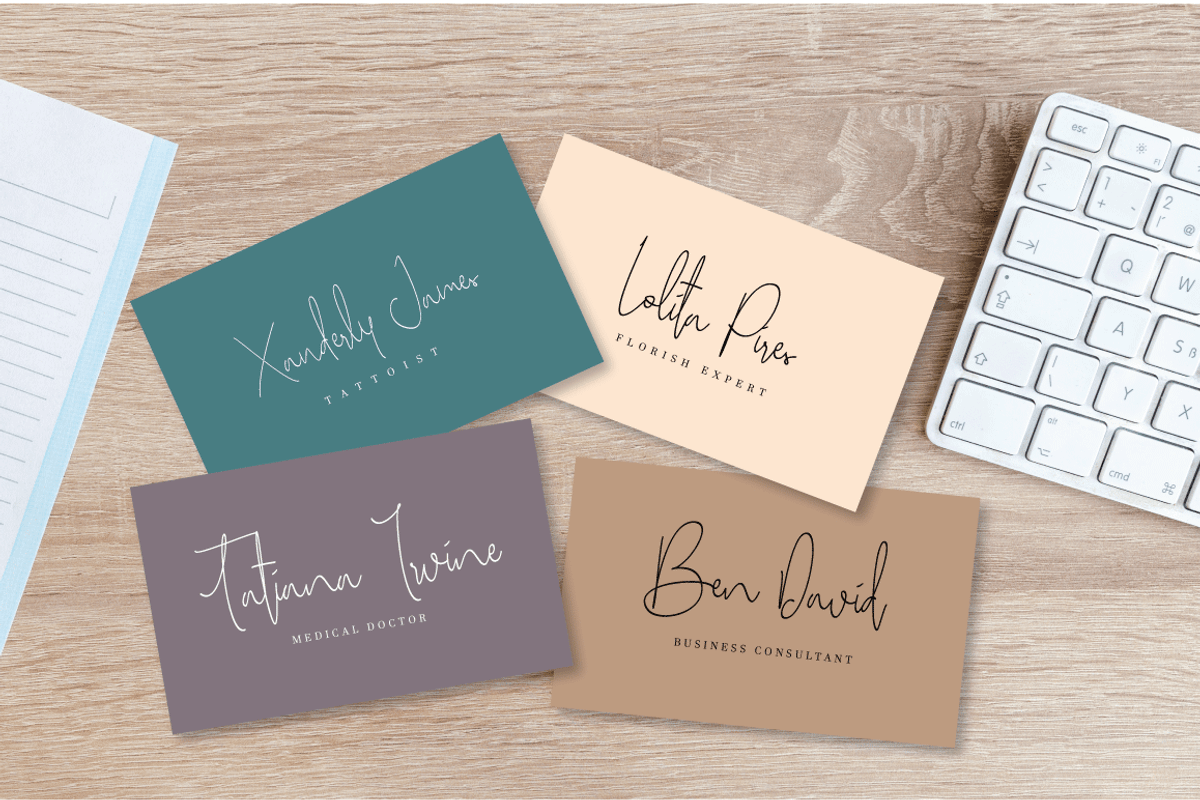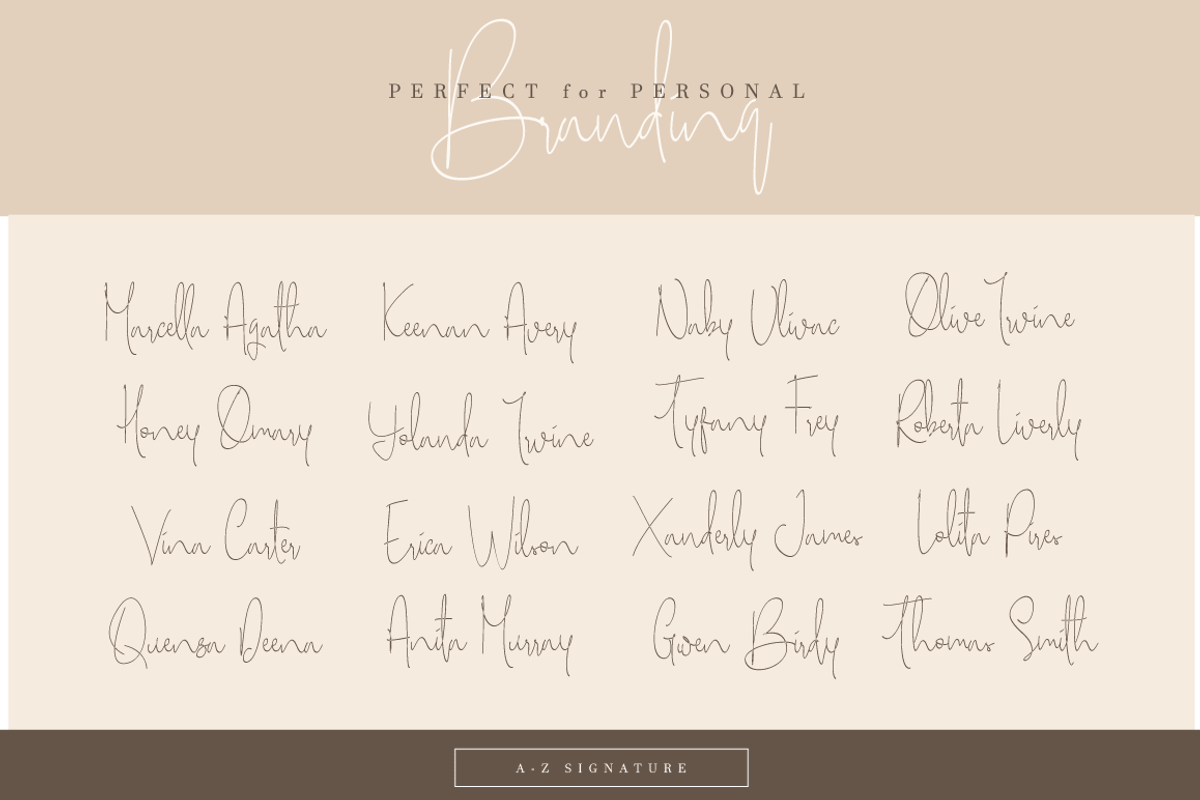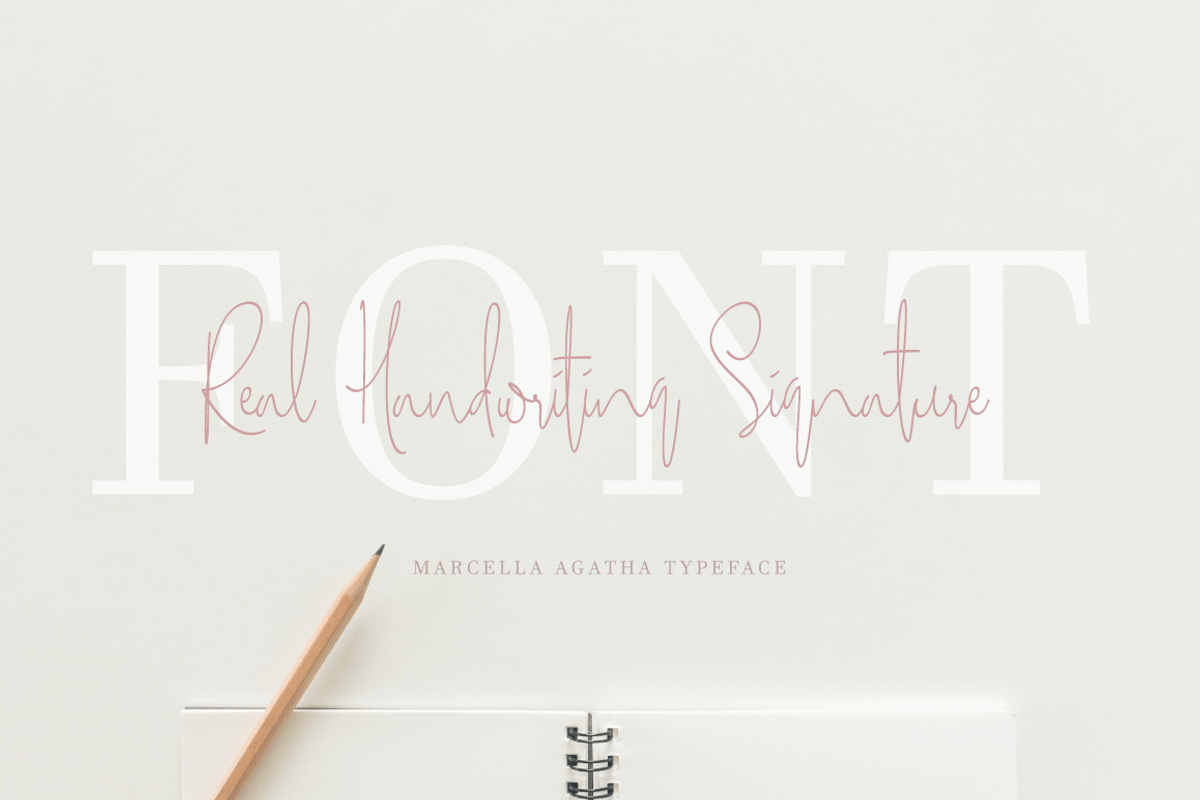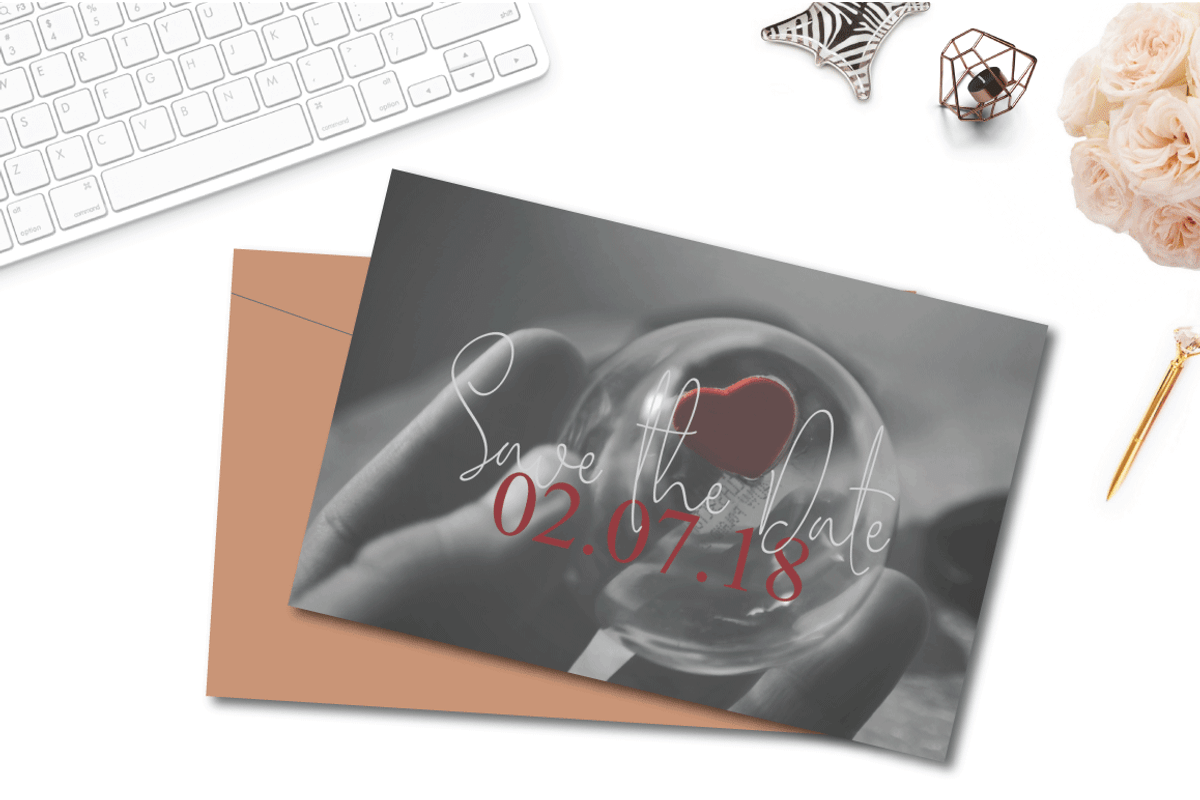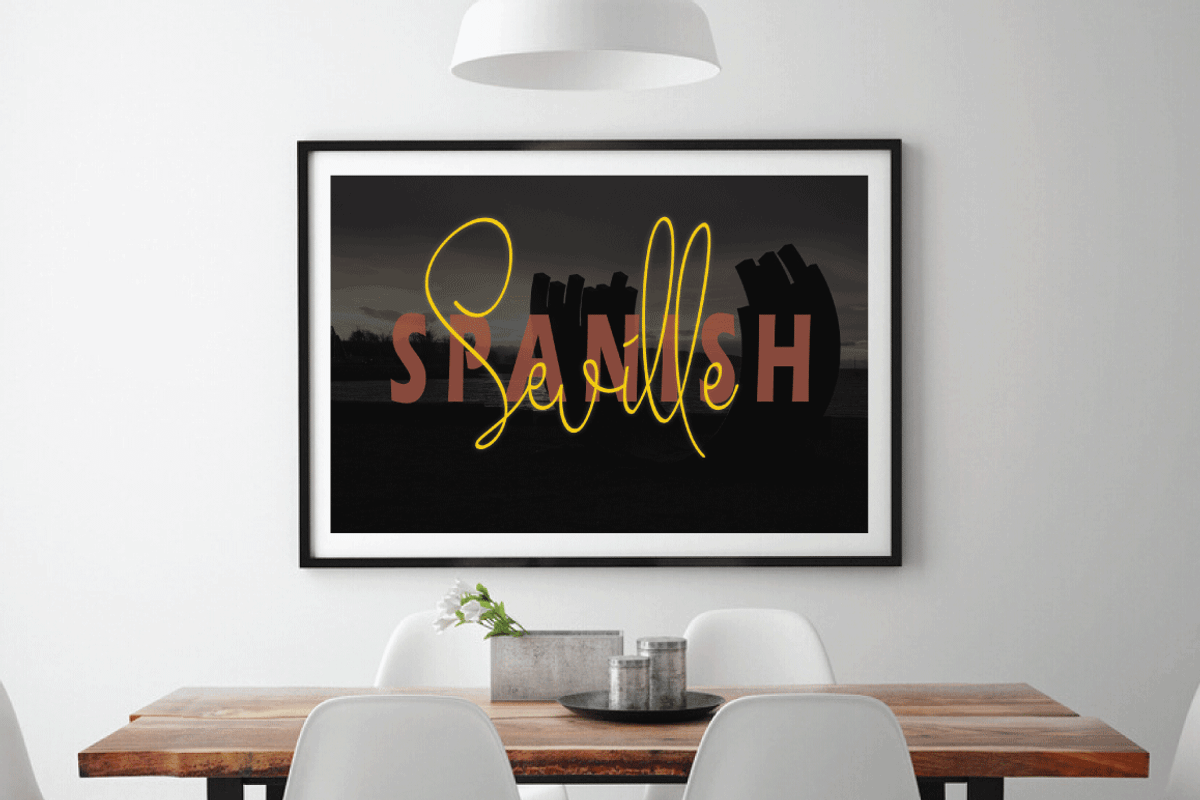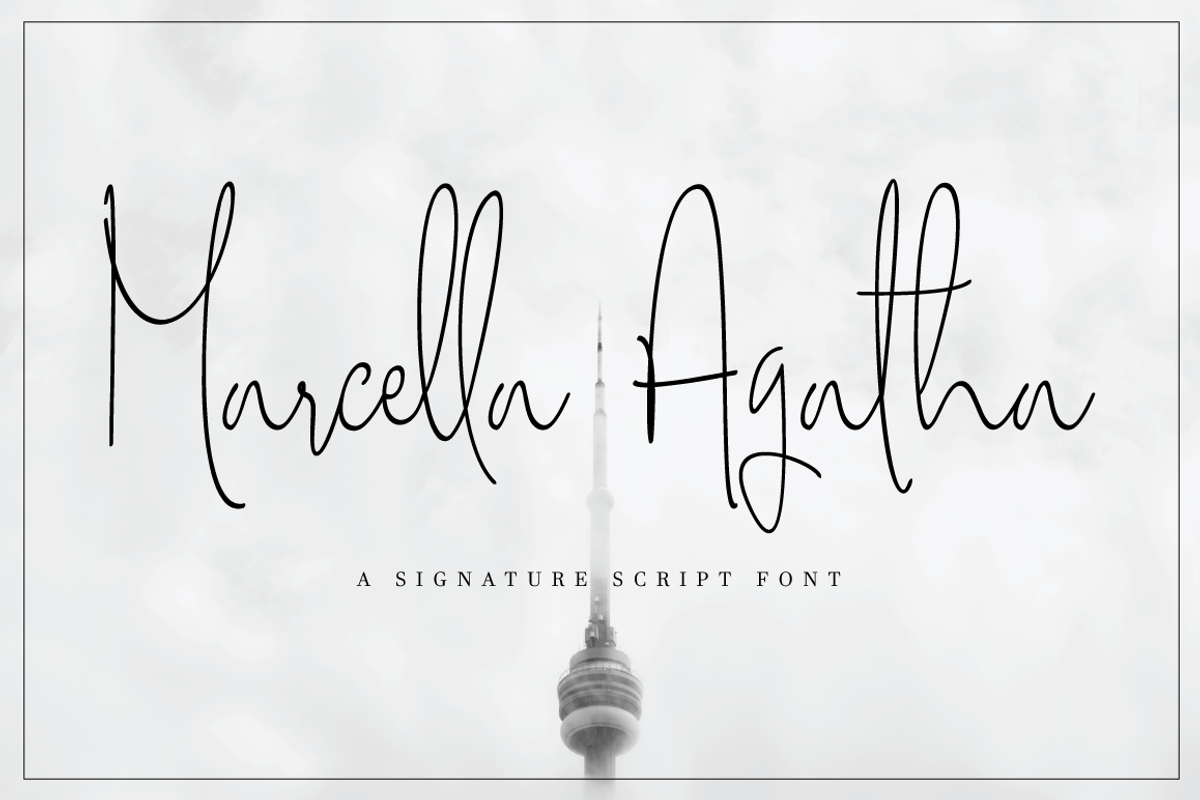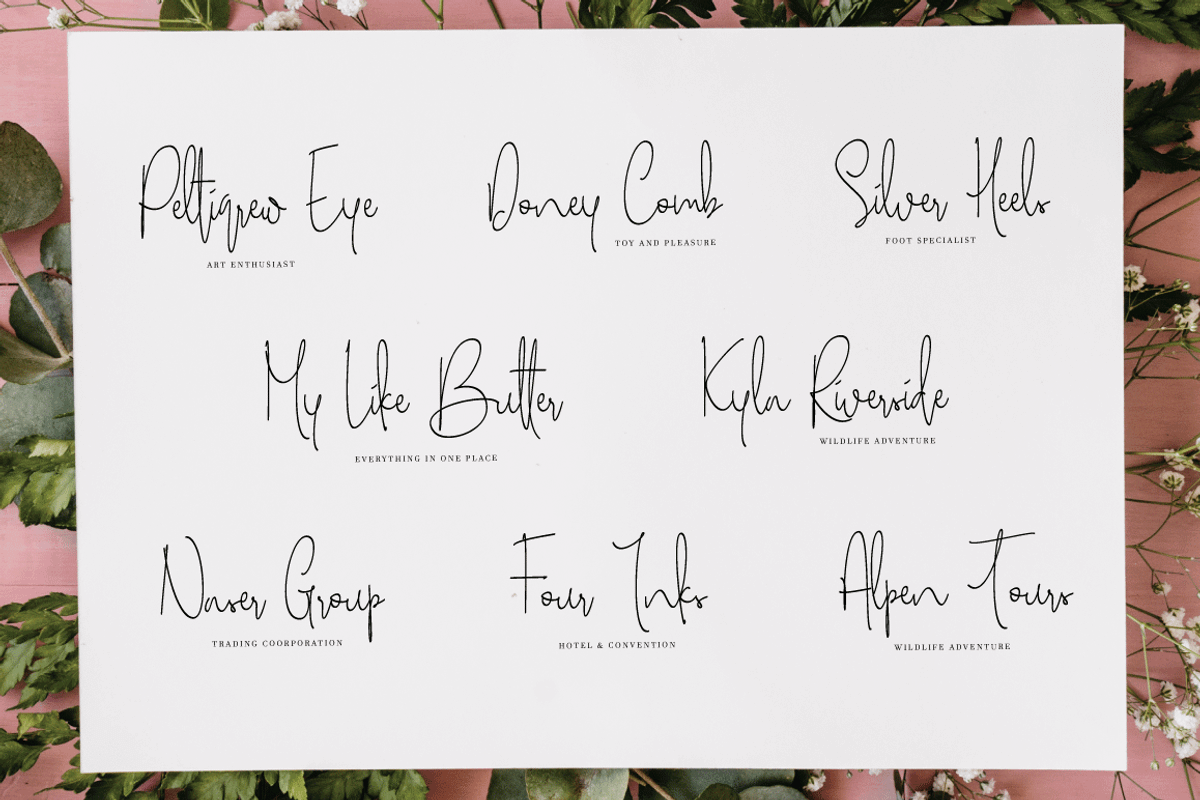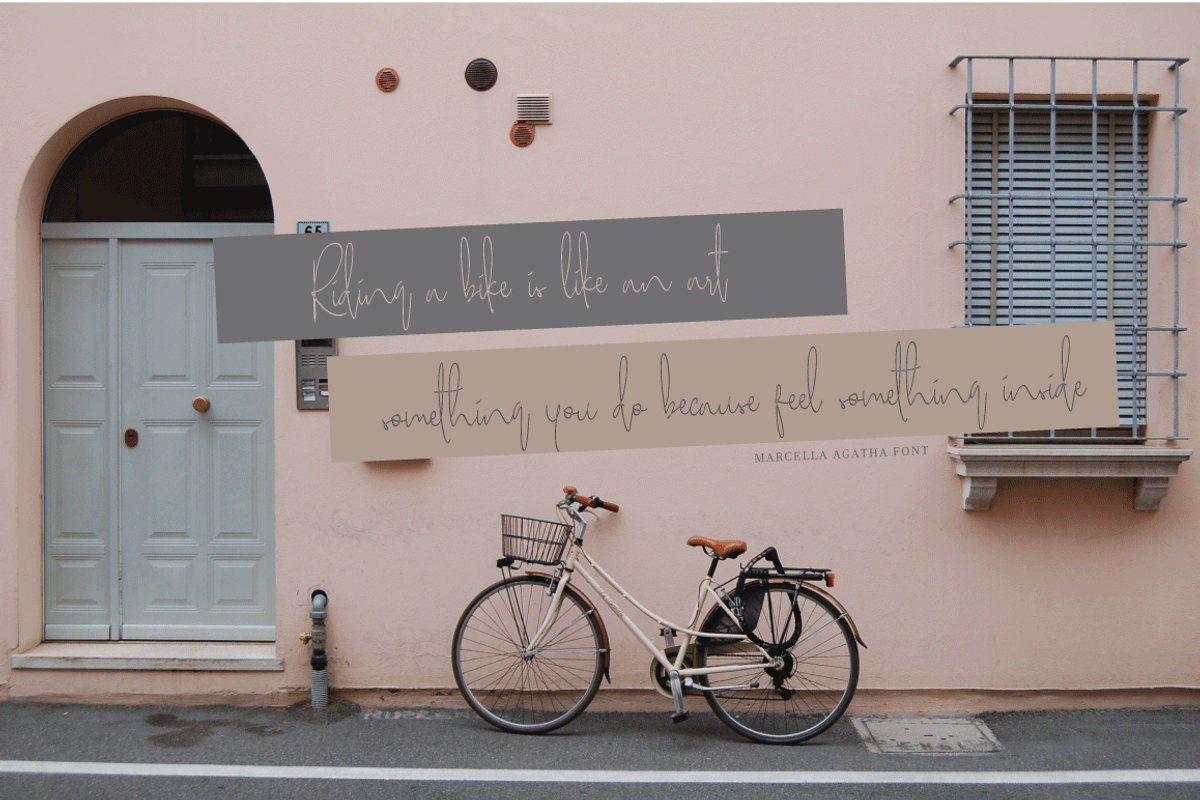
Marcella Agatha Typeface
Marcella Agatha font is a signature style and real handwriting font. This script font specifically developed for real handwriting looks and perfect also for A-Z signature in your personal branding.
Perfect for displays, headers, invitations, blogs, poster and so much more, Marcella Agatha will become a playful staple in your font collection!